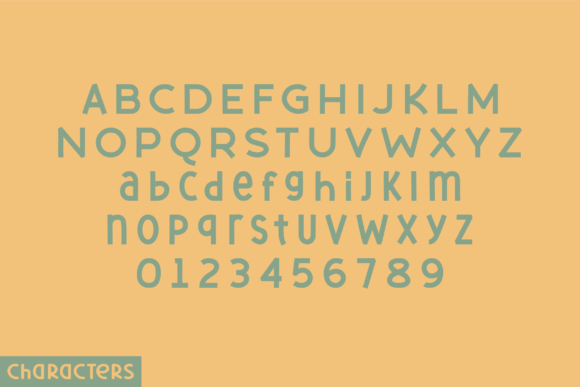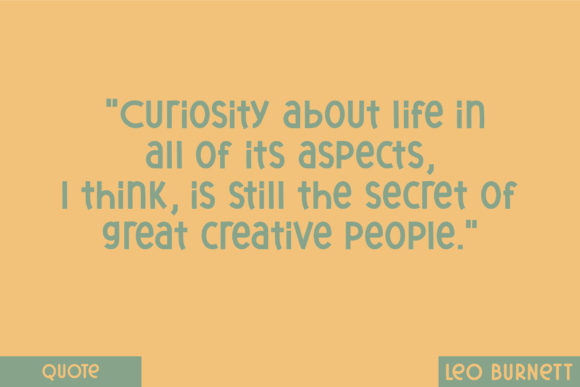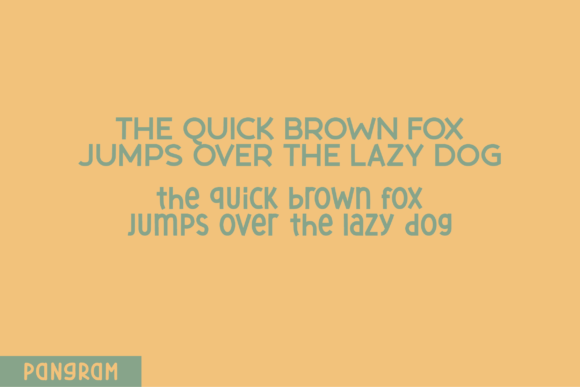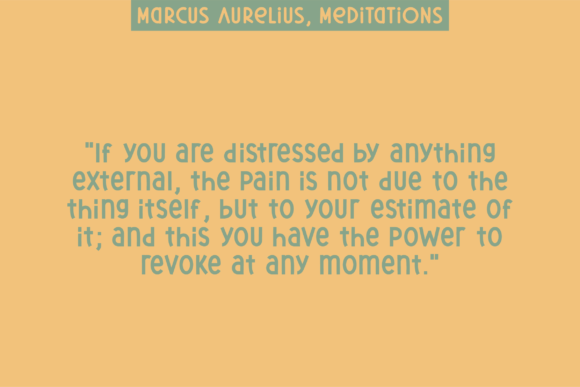
Introduction to Lemon Trifle Font
As designers, we’ve all been there – staring at a blank canvas, trying to find the perfect font to bring our creative project to life. And then, like a ray of sunshine on a cloudy day, we stumble upon the perfect match. For me, that moment came when I discovered the Lemon Trifle Font. Its natural sans serif design and unique character indentation immediately caught my eye.
But what really sets Lemon Trifle Font apart is its commitment to quality and transparency. With a free download available, designers can access this high-quality font without breaking the bank. And with its transparent background, it’s the perfect addition to any design resource – from quotes and notes to tees and product designs.
In this article, we’ll delve into the world of Lemon Trifle Font and explore what makes it a valuable asset for designers. From its unique design to its practical applications, we’ll cover everything you need to know about this exciting font.
Key Features of Lemon Trifle Font
- High-quality, unique font design ideal for creative projects and design resources.
- Comes with a transparent background, allowing for seamless integration with any design.
- Designed with a high resolution (300 DPI), ensuring crisp and clear text output.
- Perfect for use in various design projects, from logos and branding to digital and print materials.
Honest Review: Lemon Trifle Font
I recently stumbled upon the Lemon Trifle Font while searching for free download resources for my latest creative project. I was immediately drawn to its elegant and whimsical design, making it a perfect fit for my project’s aesthetic.
Here’s what works well with the Lemon Trifle Font:
- ✨ High-quality typography with crisp lines and smooth curves
- ✨ A wide range of font styles, from bold to cursive
- ✨ Transparent background, allowing for seamless blending with other design elements
- ⚠️ No bold or italic variations available for certain font styles
Overall, I’m impressed with the Lemon Trifle Font’s design and versatility. While it may have some limitations, it’s a great addition to any designer’s library. With a free download option available, it’s definitely worth checking out for your next creative project.
The Lemon Trifle Font is perfect for a variety of design projects, including wedding invitations, birthday cards, and other creative projects. Its elegant style and high-quality rendering make it a great choice for designers looking to add a touch of sophistication to their designs.
To get the most out of the Lemon Trifle Font, experiment with different font sizes, colors, and combinations. Use the font’s transparent background to create a sense of depth and visual interest in your designs.